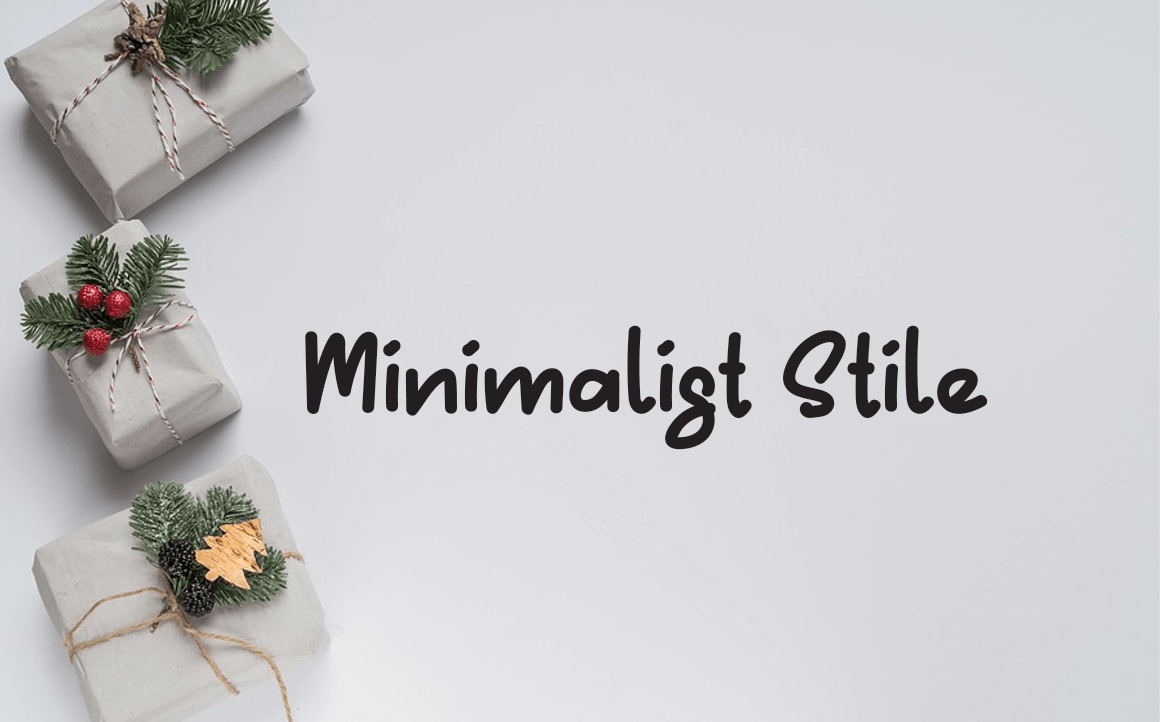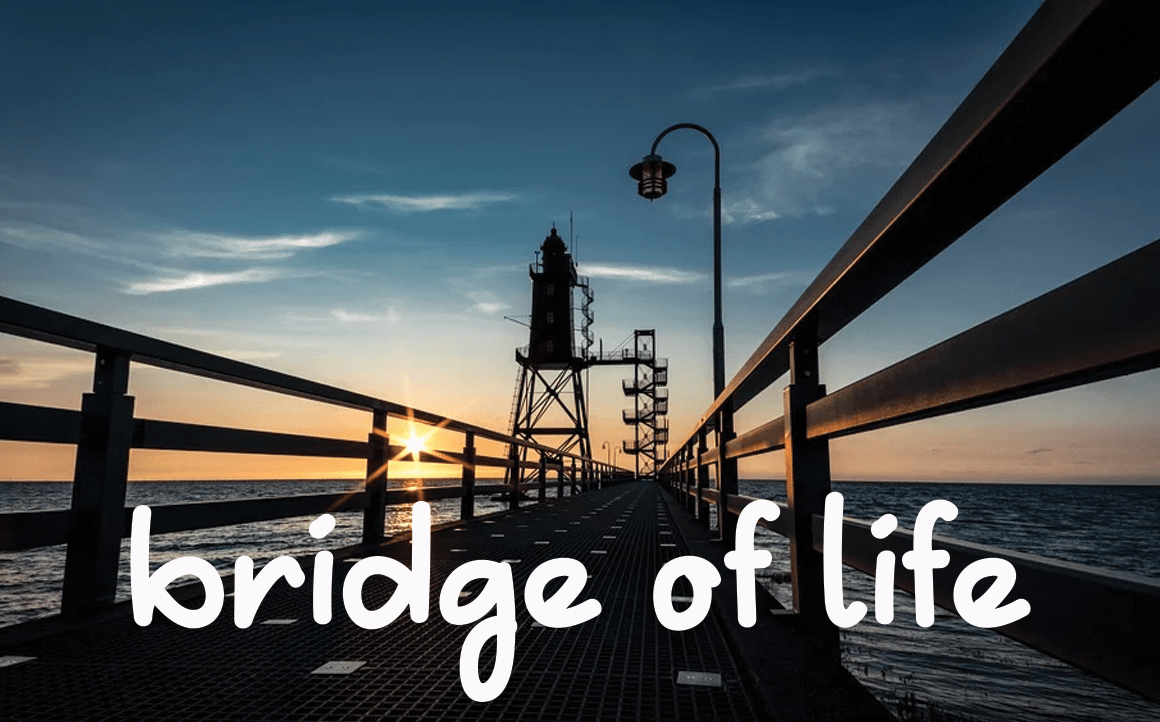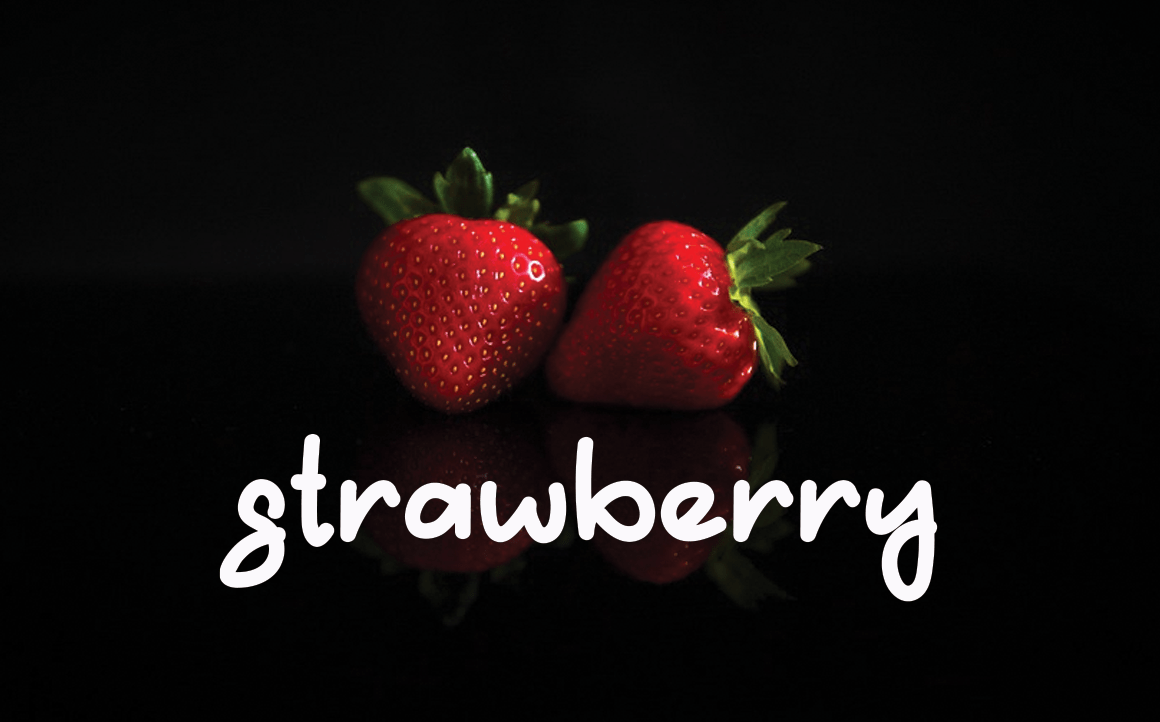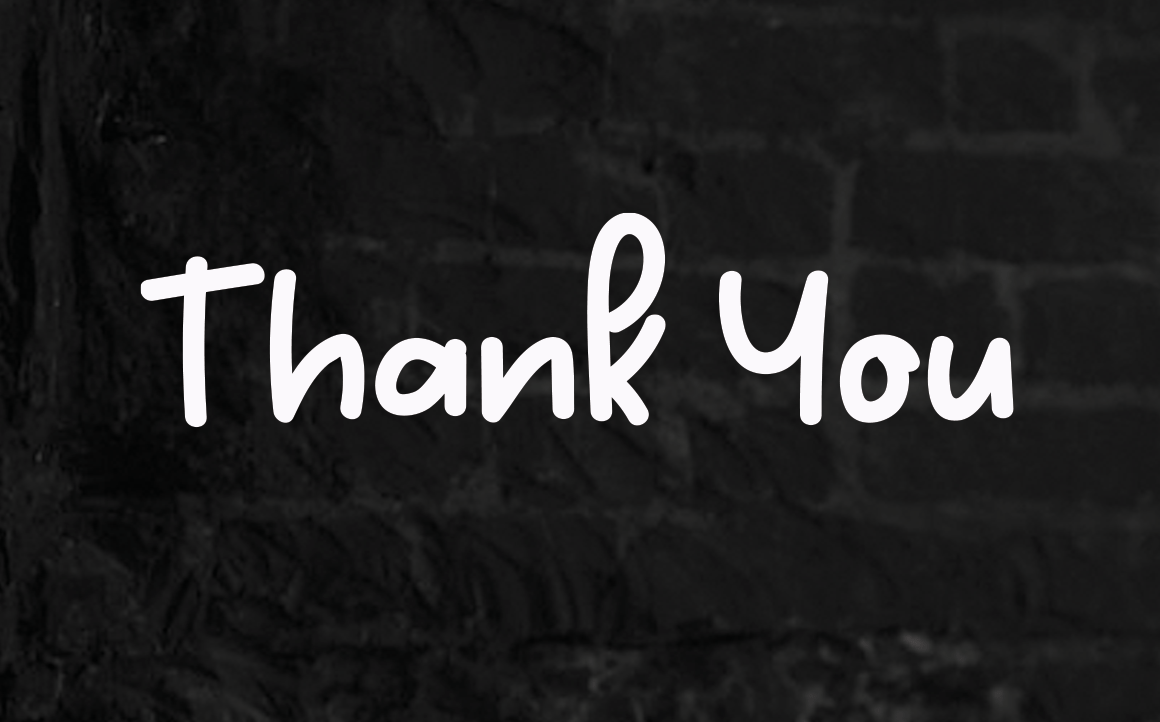
Graduation Cerenony Handwritten Font
This is a unique, fun and friendly handwritten font. Whether you’re looking for a font for Instagram or a calligraphy script for a DIY project, this font will turn any creative idea into a true work of art!